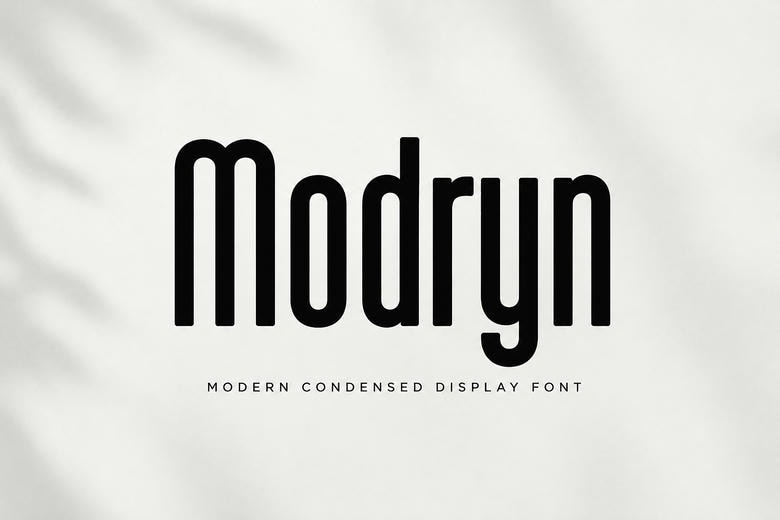
Modryn is a bold, modern display font with a condensed look that stands out. Its tall letters and clean lines create a fresh style, making it ideal for headlines, logos, branding, posters, packaging, editorial layouts, and social media graphics.
Modryn’s sleek, condensed design helps you fit more text into small spaces while keeping it easy to read and stylish. It works well for luxury brands, fashion magazine covers, modern posters, etc.
Modryn Display Font